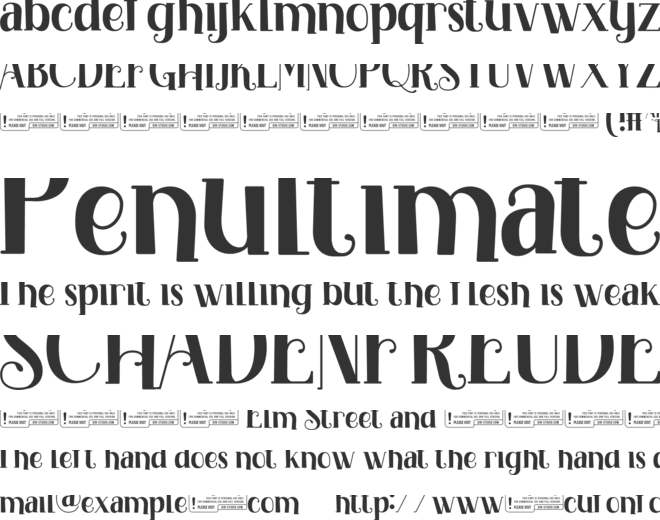
-We intentionally differentiate this personal use font from its commercial version; numerical and some punctuation marks will not be found in this version. If you desire the full version, please visit the commercial link provided in this document. You can also try it out through the trial font on the product page.
Akserant Display Font is an amazing display font. The font is suitable for any project like branding, advertising, bbok cover, lettering, t-shirt print and so much more. See the previews above to get some inspiration on how you can use them. Enjoy the font!